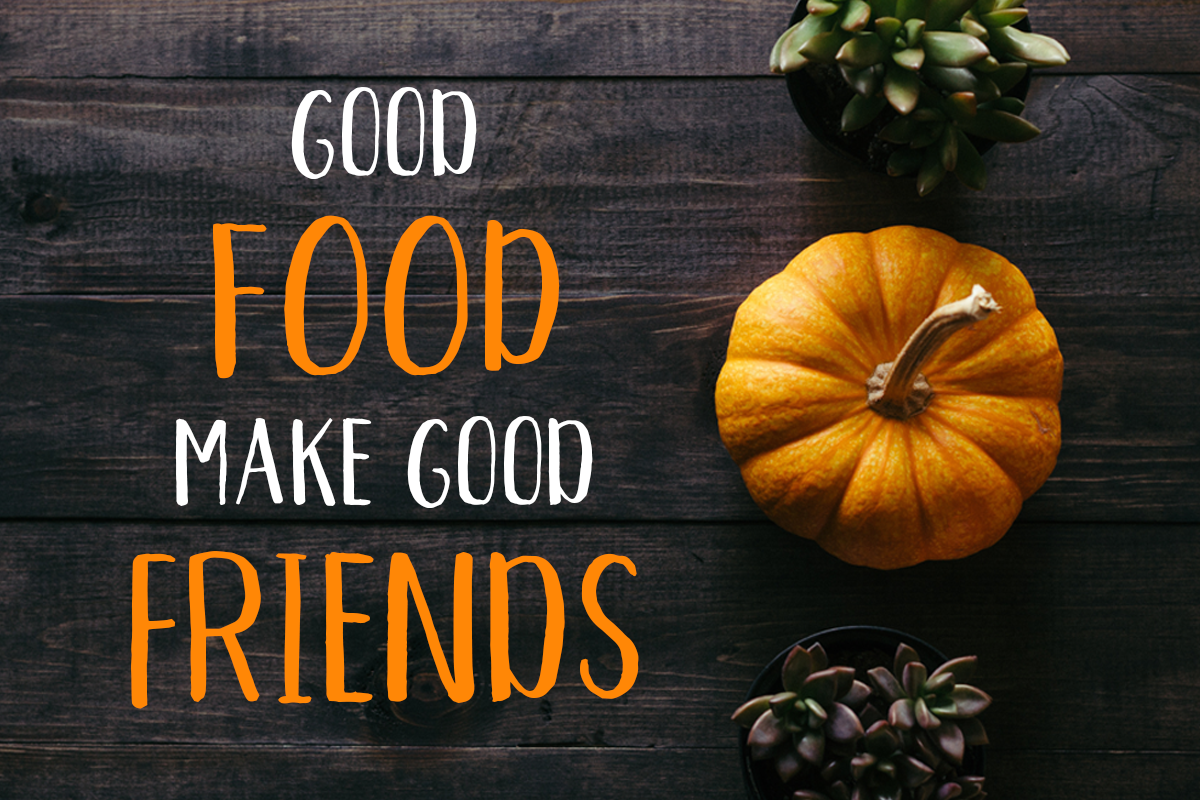
Free Aprils Handdrawn Font
Download and enjoy this free aprils handdrawn font. Cool typeface to showcase your designs in a modern way. This is a downloadable typeface file brought to you by Pixelify. Easily amaze your audience with this fancy font and make your graphic designs pop up from the crowd.